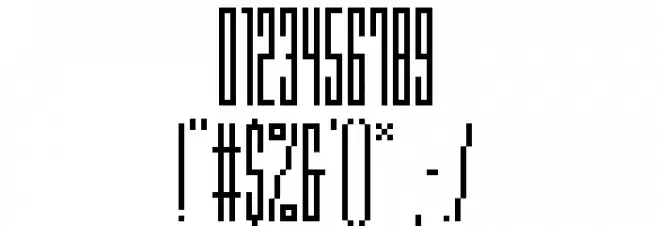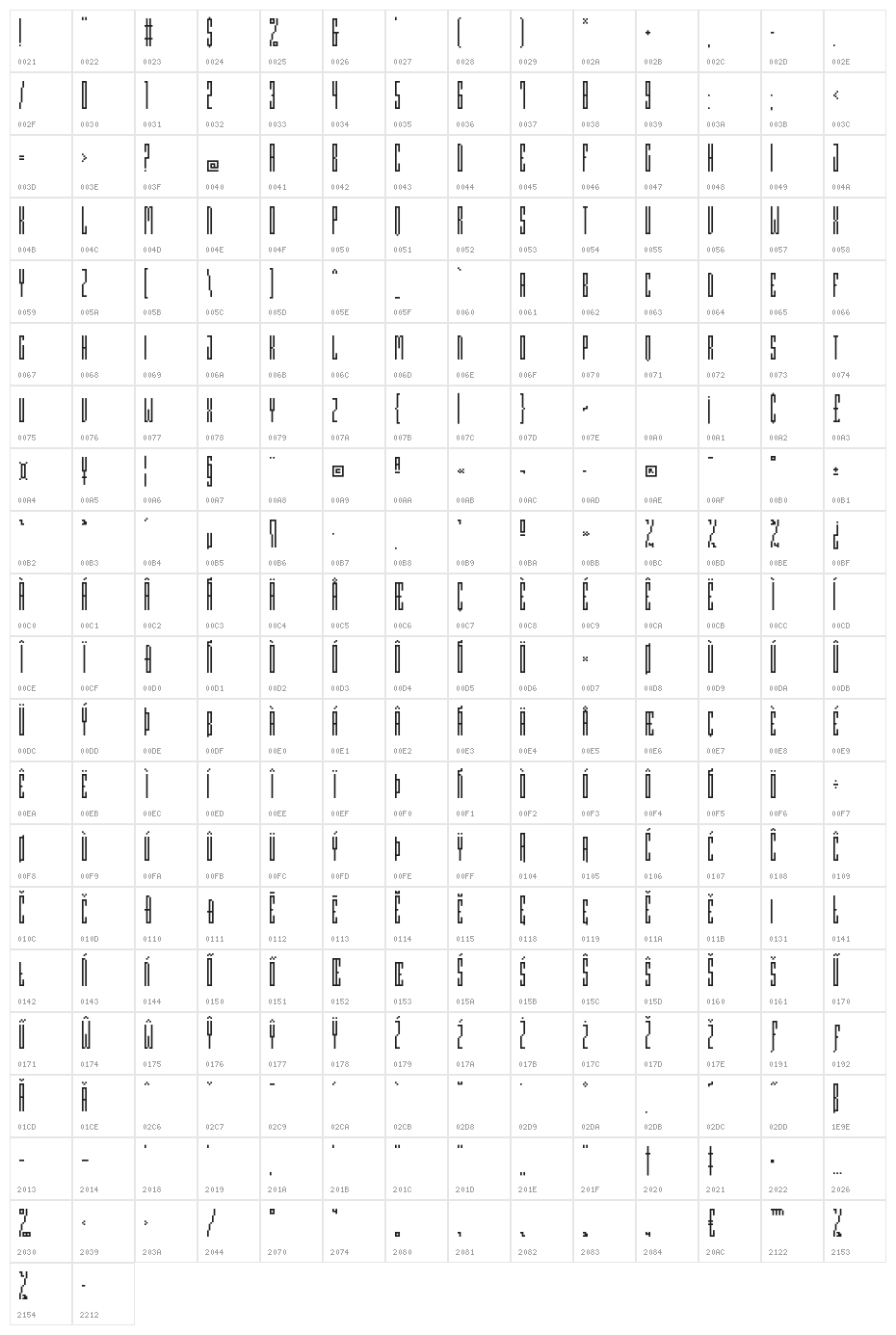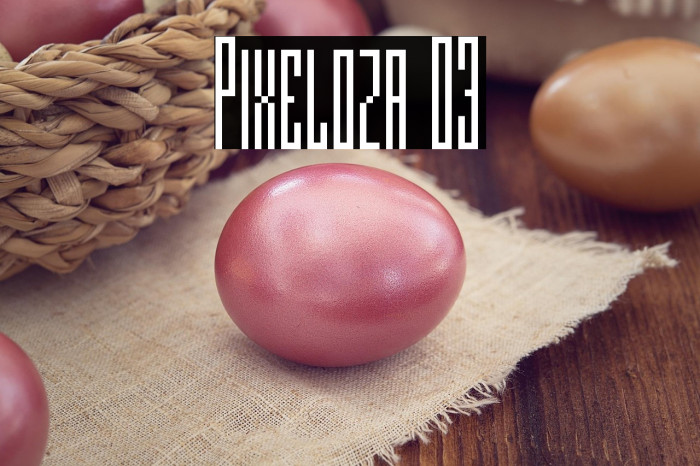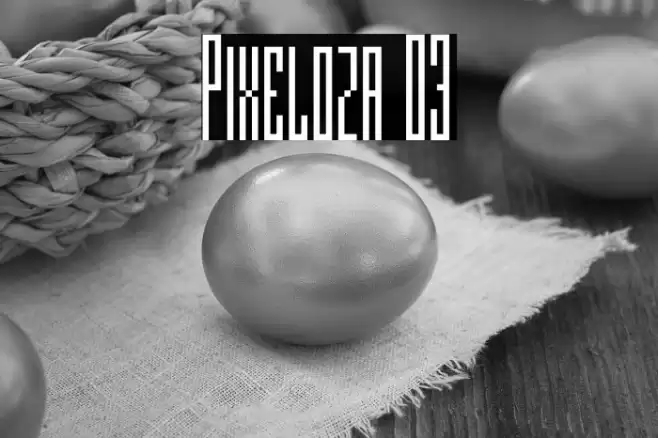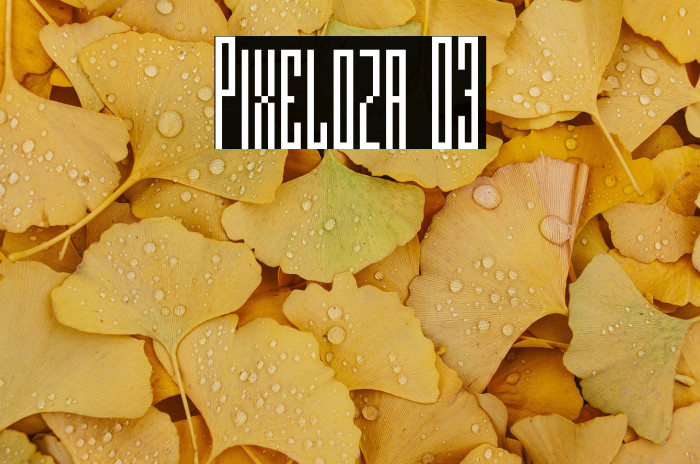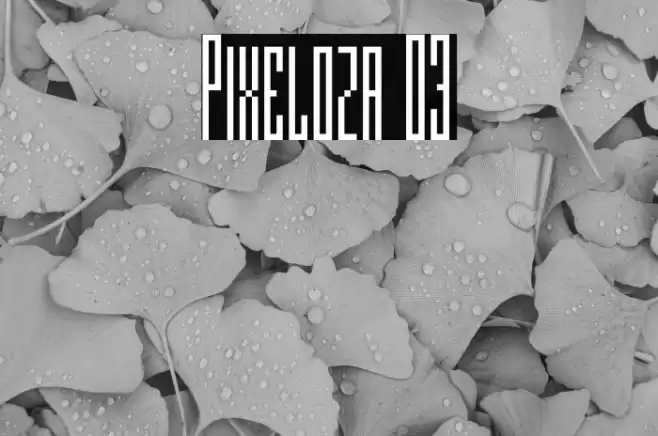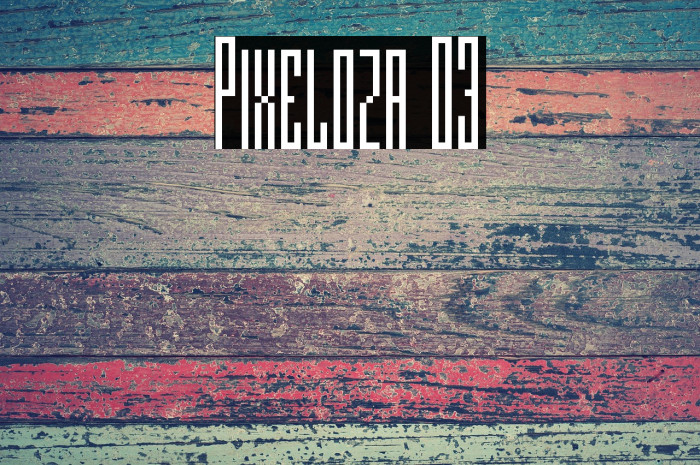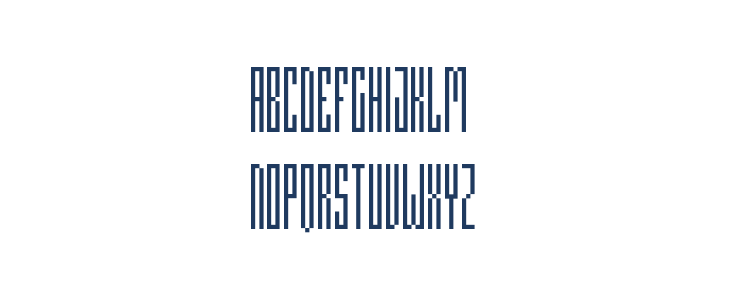
Pixeloza 03 Font
Pixeloza 03 Description
This font features a highly condensed and geometric design, characterized by its tall, narrow letterforms and consistent stroke width. The characters are constructed with a pixelated, grid-like appearance, giving it a digital, retro aesthetic reminiscent of early computer graphics or arcade games. The uppercase and lowercase letters maintain a uniform height, enhancing its monospaced feel. Numbers and special characters follow the same stylistic approach, ensuring visual consistency across all glyphs. The overall look is modern and minimalistic, making it suitable for projects that require a tech-savvy or futuristic vibe.
| Use Case | Logos, Headlines, Digital interfaces |
| Proposed Projects | Ideal for video game design, tech branding, digital art projects, and retro-themed posters. |